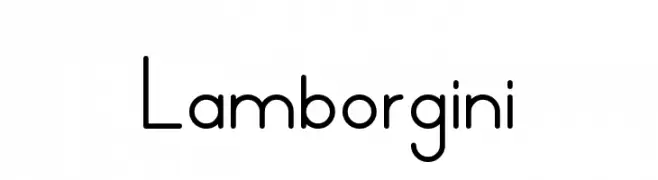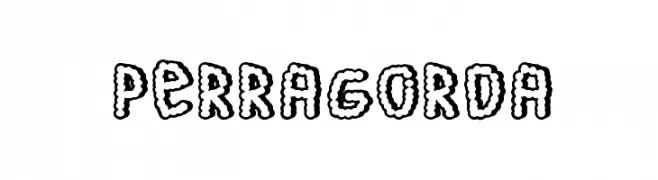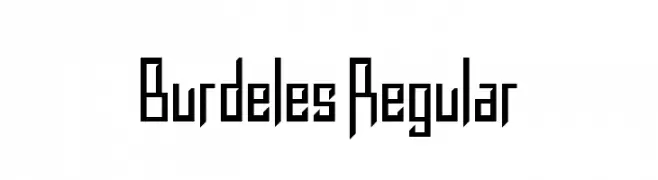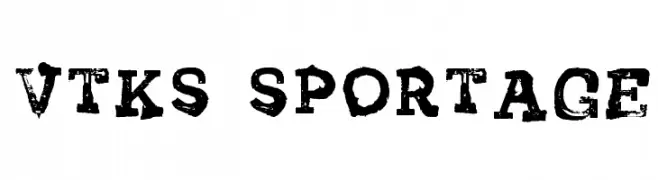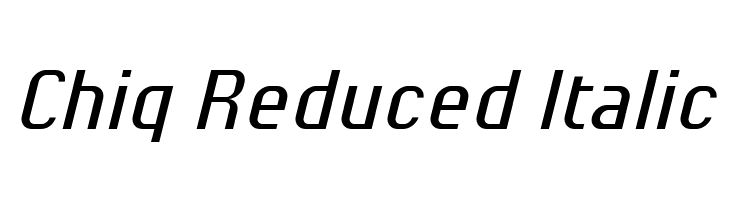
A bold, geometric font with a modern and futuristic style.
A modern, rounded font with a playful and minimalist design.
Ornamental fleur-de-lys symbol font with diverse styles.
A playful, bubble-like font with a hand-drawn, textured appearance.
A playful, bold font with rounded strokes and a friendly appearance.
A modern, italic font with a striped gradient effect, exuding energy and motion.
A dynamic, expressive handwritten font with fluid, irregular strokes.
A bold, angular font with sharp edges and geometric shapes.
A bold, left-leaning font with a dynamic and energetic style.
A rugged, distressed font with a bold, textured appearance.